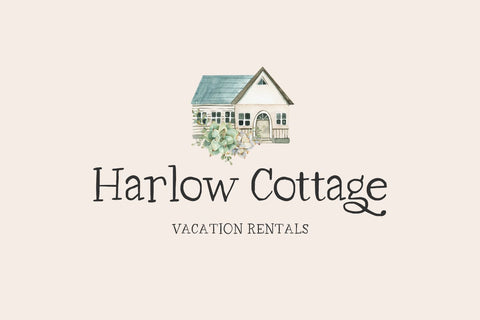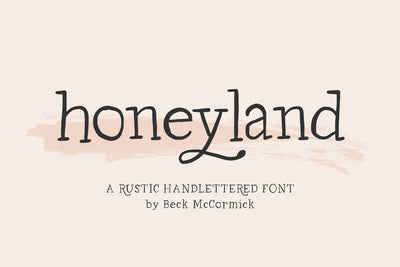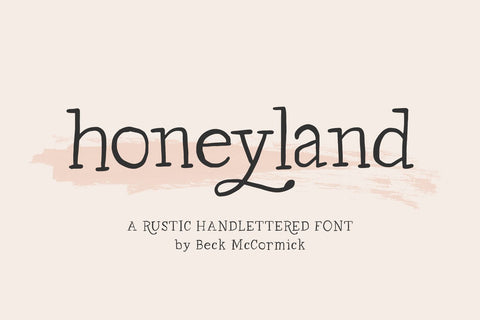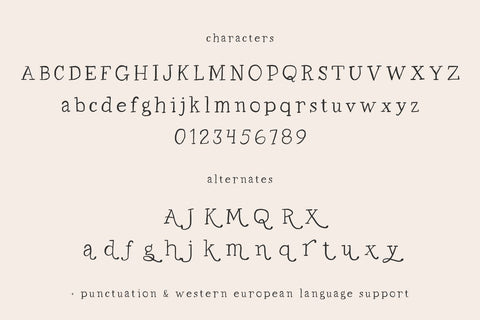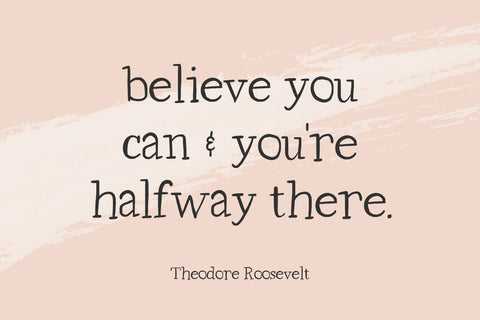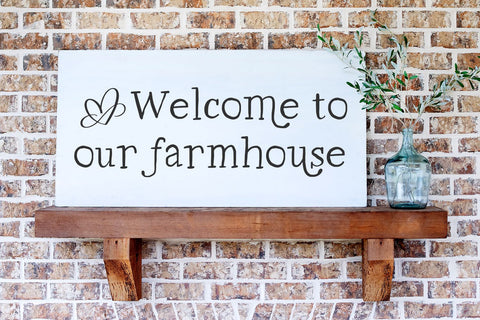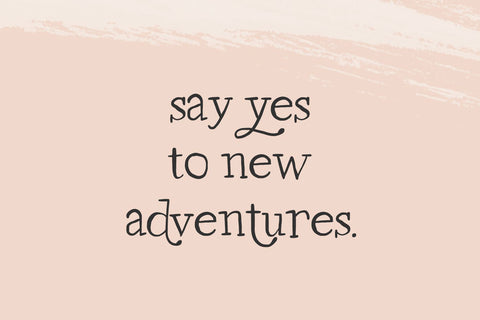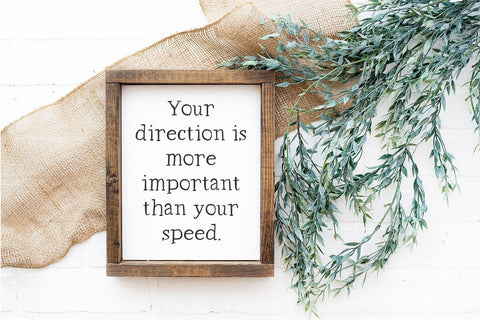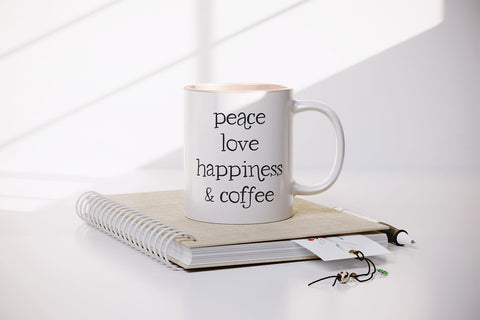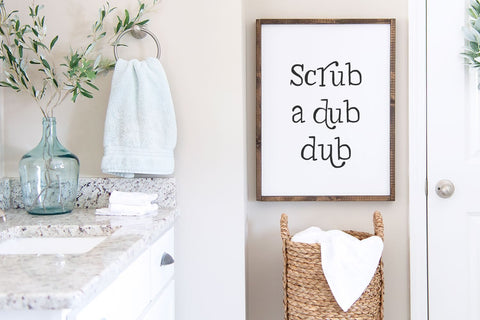
Honeyland Serif Font
Introducing Honeyland, a rustic handlettered serif font. Honeyland is whimsical and perfect for farmhouse projects!
Honeyland is best for:
- feminine, crafty projects with your Cricut or Silhouette machine, or your SVG design business
- farmhouse decor and crafts
- logos + branding
- website design + website accents, blog design
- clean print design, like magazines + flyers
- header elements that need handwritten touch
- quote graphics for social media
- feminine graphic tee shirt design & other apparel
Honeyland includes:
- full upper + lowercase characters
- numbers + punctuation
- Western European Language Support
- 22 alternate characters: A, J, K, M, Q, R, X, a, d, f, g, h, j, k, m, n, q, r, t, u, x, y